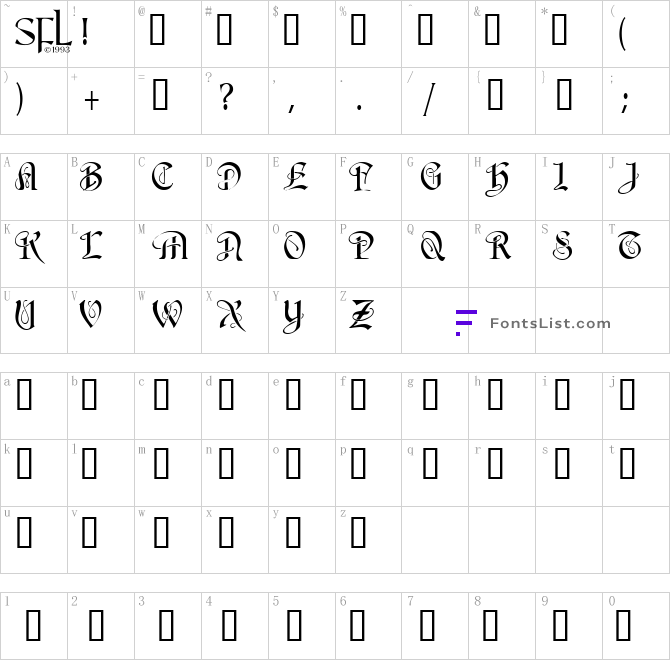
- Font Name:Averoigne
Averoigne-copy-1-.ttf is a very beautiful artistic font, Averoigne-copy-1-.ttf is widely used in the design and printing of various books and pictures,Averoigne-copy-1-.ttf has a strong visual impact,Averoigne-copy-1-.ttf is a commonly used font in newspapers, magazines and books, and is used in posters, e-commerce Poster design, store design, logo design, font design and other fields.Averoigne-copy-1-.